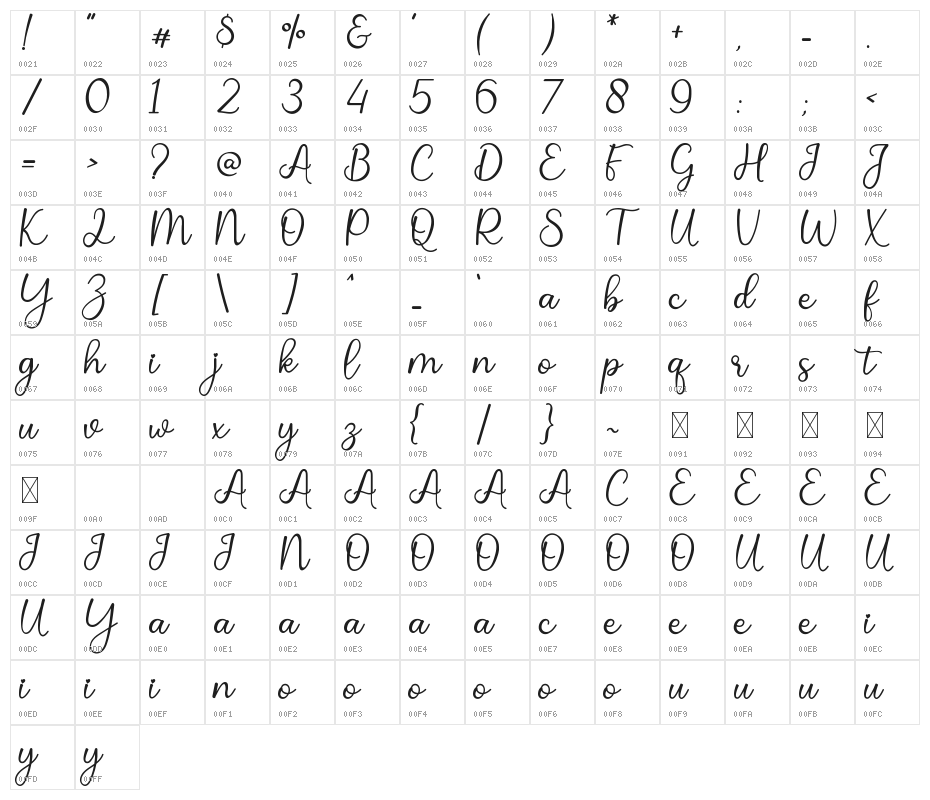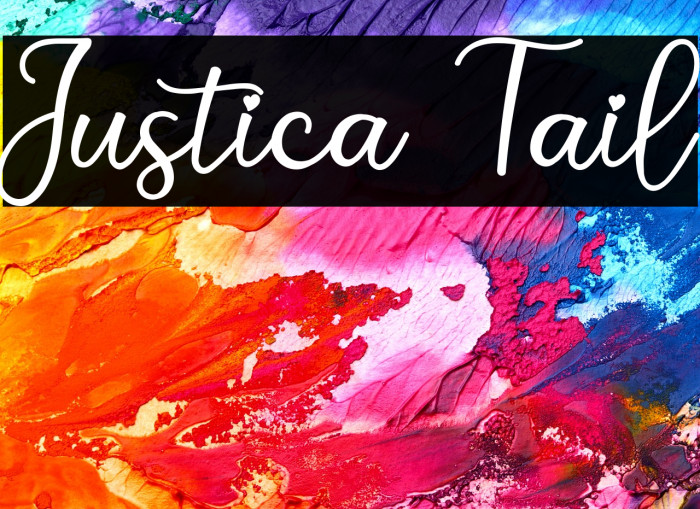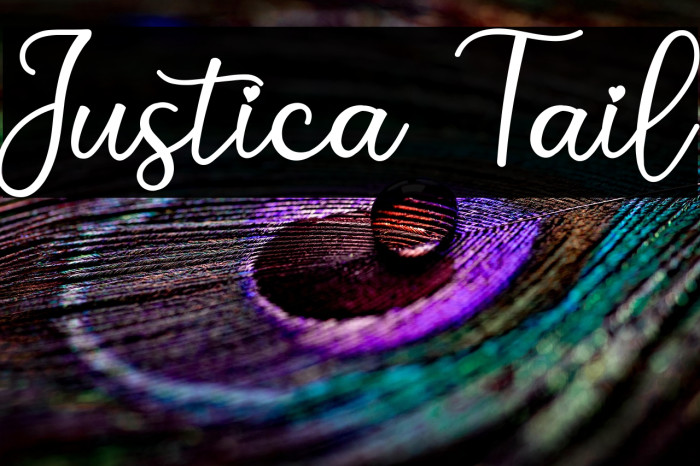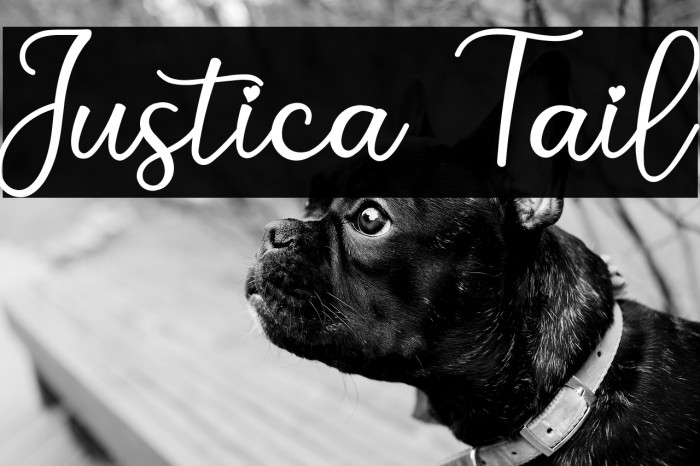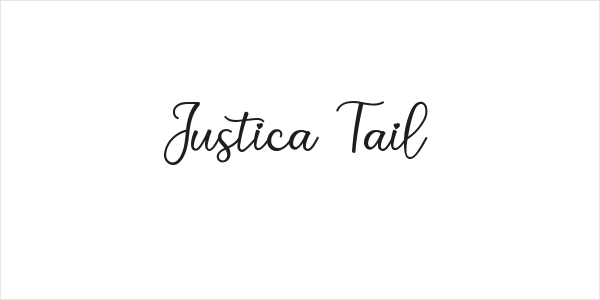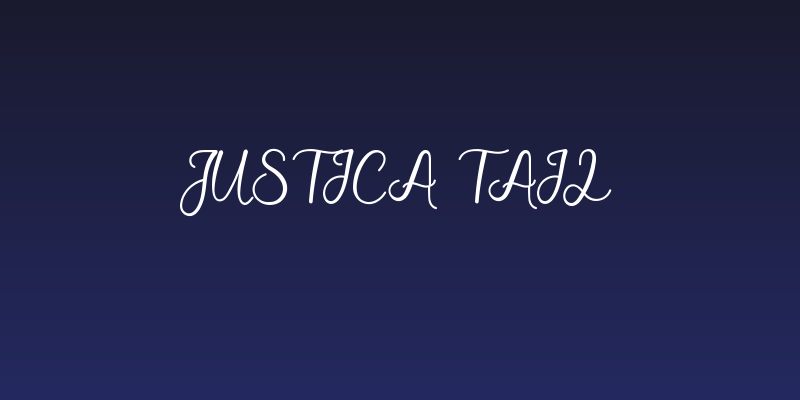
Justica Tail Font
Justica Tail Description
This elegant script font features a flowing, cursive style with smooth, connected strokes that create a sense of fluidity and grace. The uppercase letters are characterized by their tall, slender forms and gentle curves, while the lowercase letters maintain a consistent rhythm with their rounded shapes and loops. The numerals are designed with a similar flair, offering a harmonious blend with the alphabet. Special characters are thoughtfully crafted to match the overall aesthetic, making this font versatile for various design needs. Its delicate yet confident appearance makes it ideal for projects that require a touch of sophistication and charm.
Overall StyleElegant, Decorative
Use CaseLogos, Invitations, Decorative text
Proposed ProjectsIdeal for wedding invitations, greeting cards, branding, and elegant packaging designs.